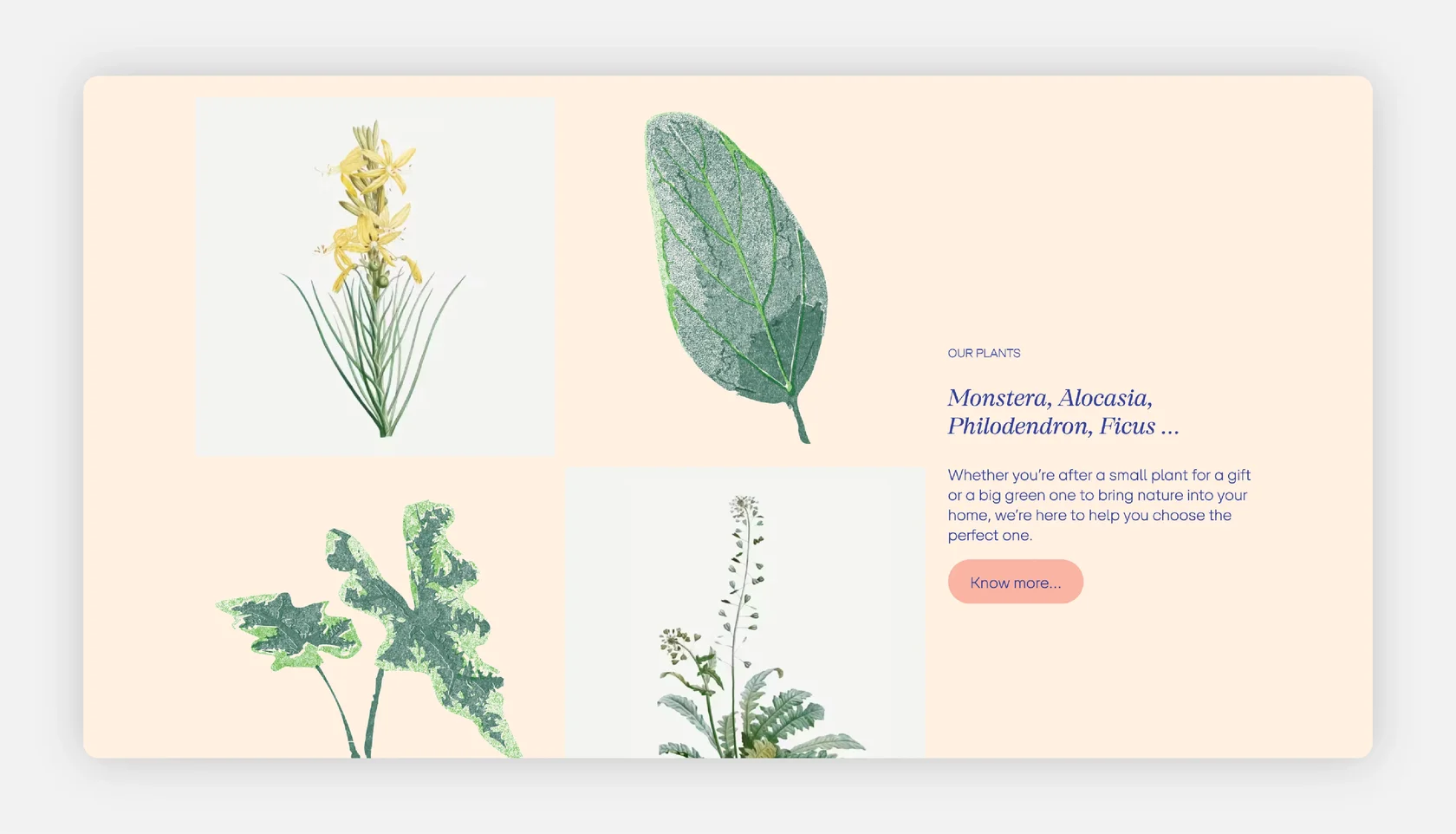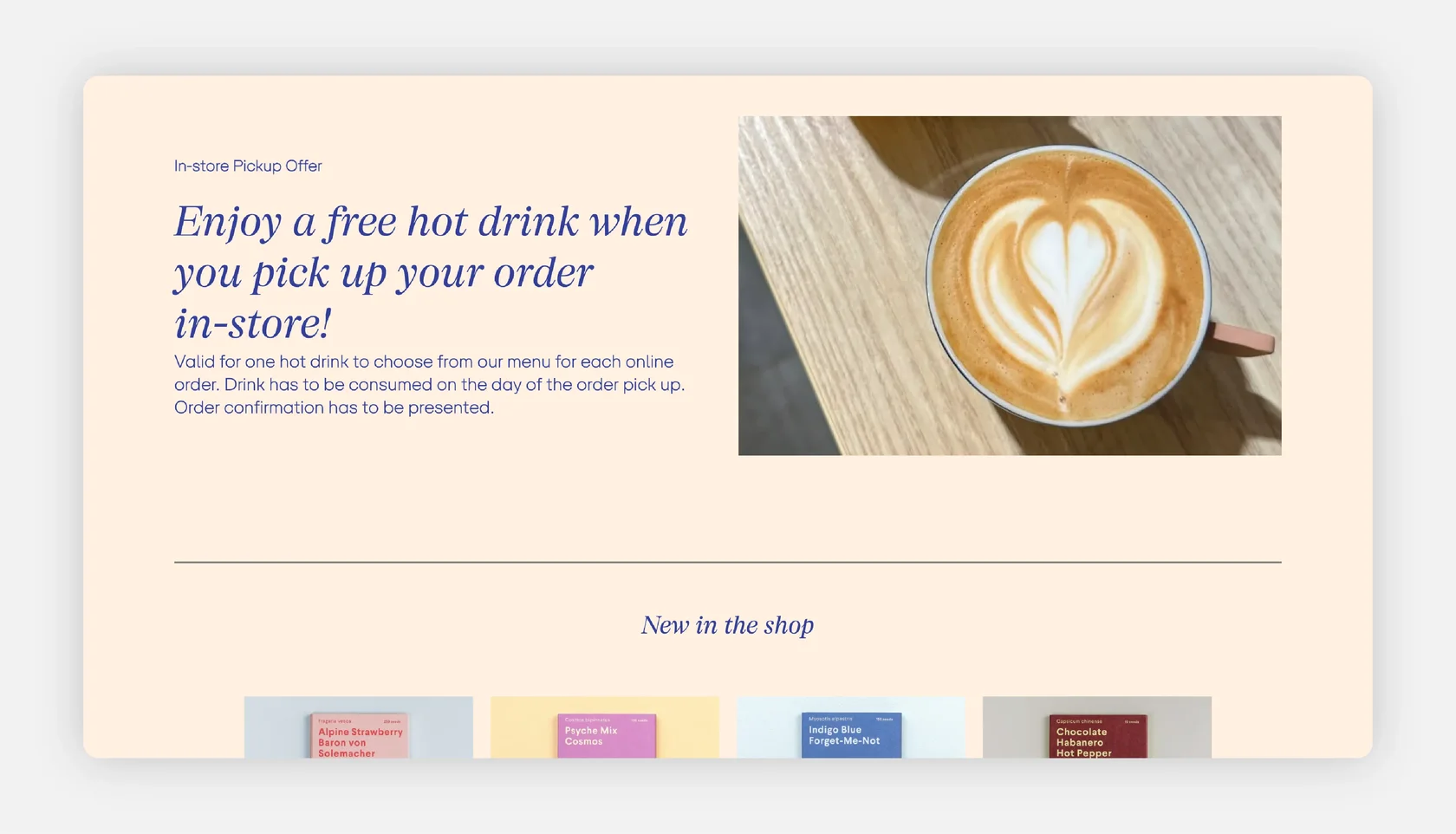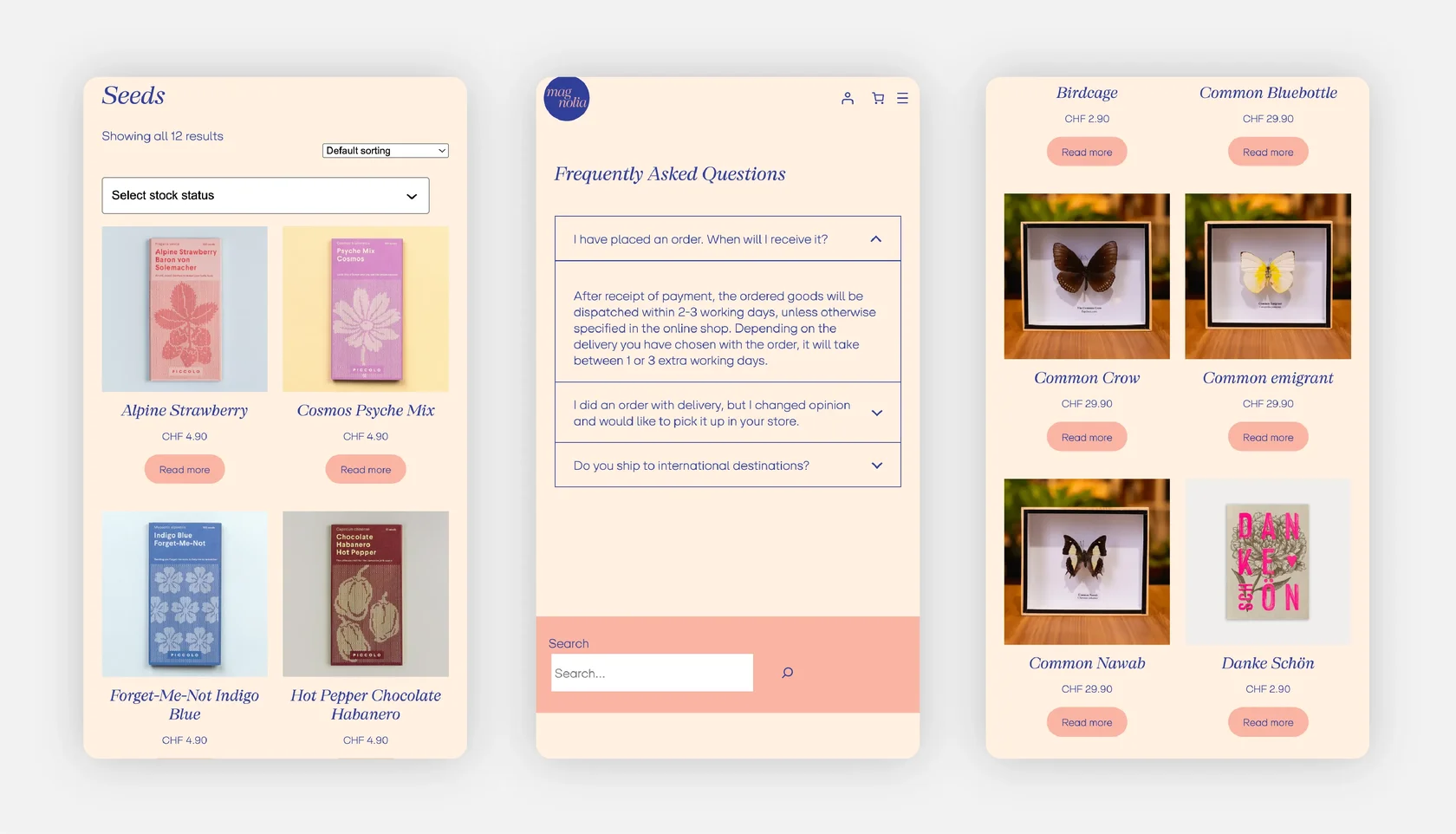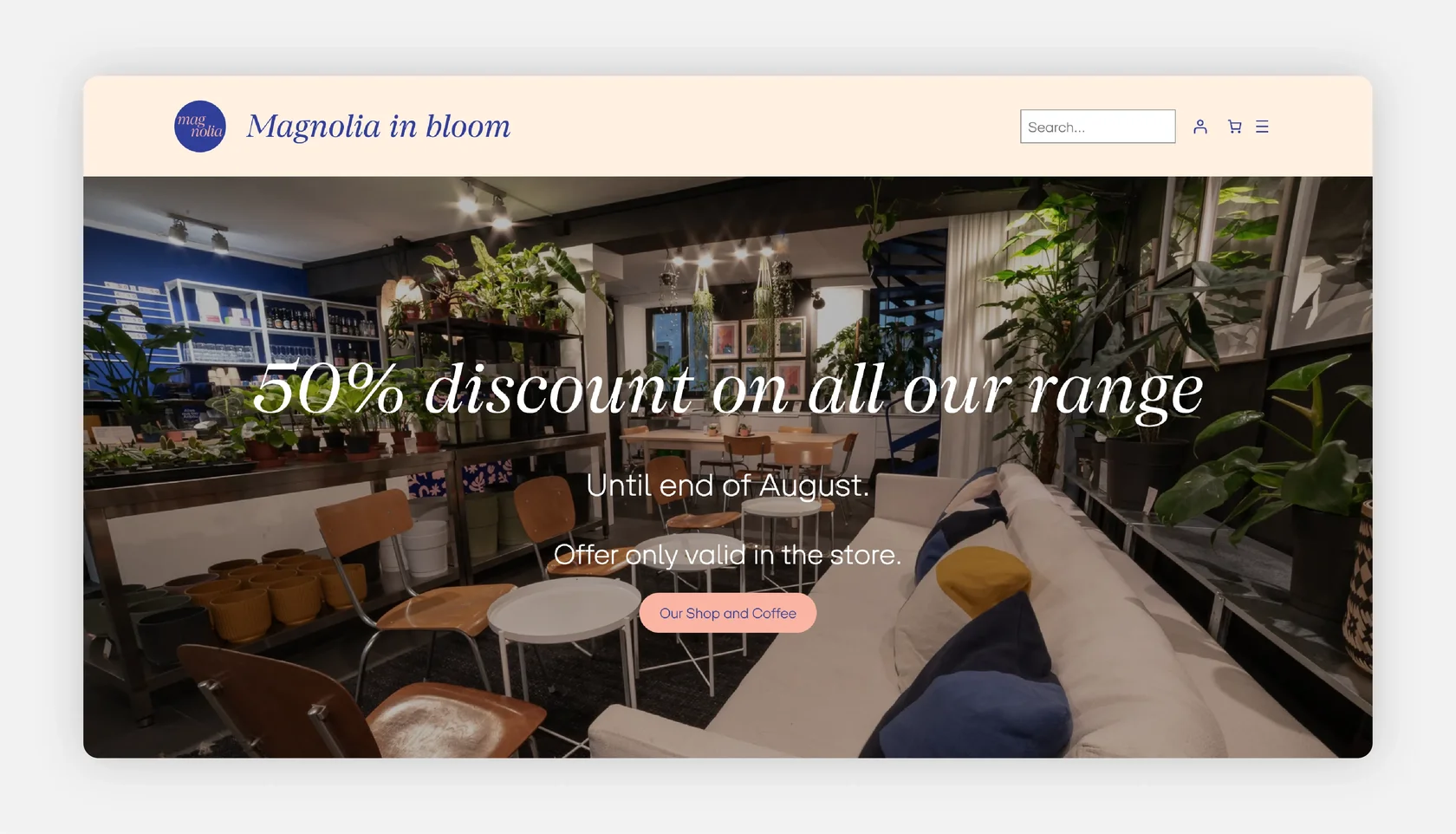
Magnolia in Bloom — Concept Store & Café in Zurich
Font: SFT Schrifted Serif + SFT Schrifted Sans.
Use case: Website design, brand communication.
About the Project:
Magnolia in Bloom is a Zurich-based concept store and café offering curated indoor plants, small-batch lifestyle goods, and a seasonal drink & food menu. The website blends e-commerce with a friendly local atmosphere, presenting products, promotions, and café details alongside warm photography and illustrated botanical elements.
Why SFT Schrifted Serif & Sans?
SFT Schrifted Sans and SFT Schrifted Serif are paired throughout the site to structure information and highlight tone. The clean sans is used for navigation and product listings, while the serif appears in headings and expressive statements, giving the brand a personable, handcrafted character suited to its plant- and café-driven identity.